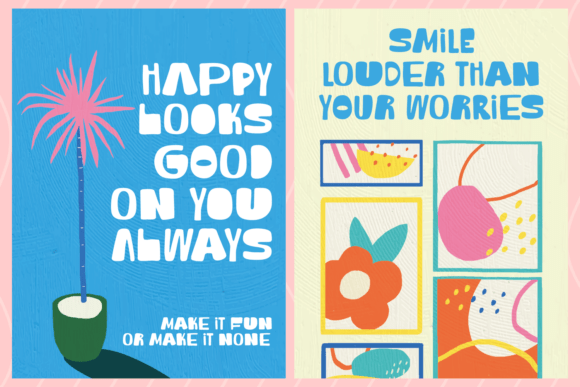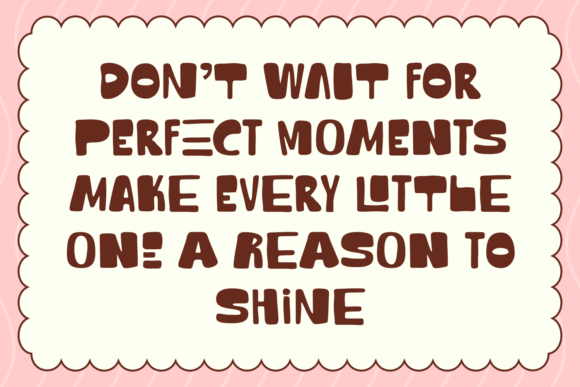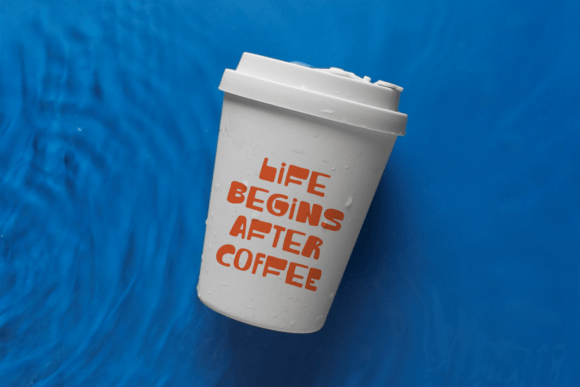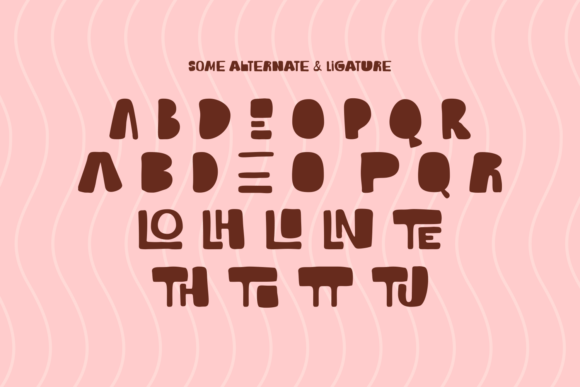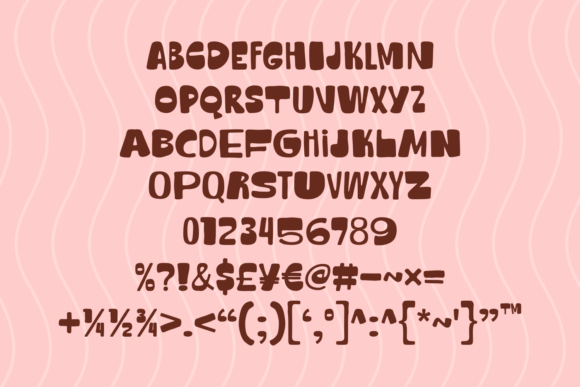
The Joy of Blorpie Font: Adding a Playful Touch to Your Designs
I’ll never forget the time I was working on a children’s book project, and I just couldn’t find the right font to match the playful illustrations. The client wanted something fun, lively, and kid-friendly, but everything I tried seemed either too boring or too over-the-top. That’s when I stumbled upon Blorpie Font, and it was love at first sight! 💕
Blorpie is a hand-drawn sans-serif font with a cute and playful personality that instantly brought my design to life. Its fun, rough texture and charming contrast give every letter a lively, kid-friendly feel that’s perfect for children’s books, posters, toys, stickers, and any design that needs a cheerful touch.
An Honest Review of Blorpie Font
What I Love About Blorpie ✨
- ✅ Unique, hand-drawn texture that adds a personal touch to any design
- ✅ Wide range of applications, from children’s books to posters and stickers
- ✅ Easy to read and understand, even for young children
- ✅ Highly versatile and can be used in various design contexts
While Blorpie is an amazing font, there are a few things to keep in mind:
- ⚠️ May not be suitable for very formal or professional designs
- ⚠️ Some characters may not work well in very small sizes
The Backstory of Blorpie Font
Blorpie was designed by a talented font creator who wanted to bring a touch of playfulness to the world of typography. Inspired by childhood doodles and hand-drawn letters, Blorpie was crafted to evoke a sense of fun and imagination. Whether you’re a designer, crafter, or creative hobbyist, Blorpie is sure to bring a smile to your face and a dash of creativity to your projects.
Q: What is Blorpie Font best used for?
A: Blorpie is perfect for children’s books, posters, toys, stickers, and any design that needs a cheerful and playful touch.
Q: Is Blorpie suitable for formal designs?
A: No, Blorpie is a playful font that’s best suited for informal and creative projects.